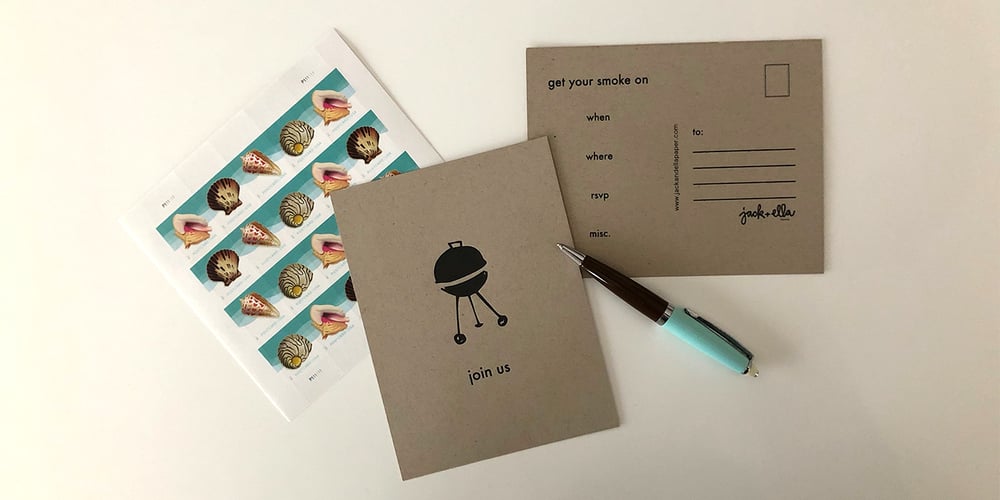
Holiday Doodles Too Font Family was designed by Rae Kaiser and published by Outside the Line. Holiday Doodles Too contains 1 styles and family package options. If you liked Holiday Doodles you will love Holiday Doodles Too as it is more of the same. 42 icons to decorate your year. Birthdays, babies, Summer, weddings, presents, St. Pat’s Day, 4th of July, Valentine’s Day, Fall, Christmas, Hanukkah and more. This font is a great clip art addition to the Doodles font family from Outside the Line. For best results use in larger point sizes.